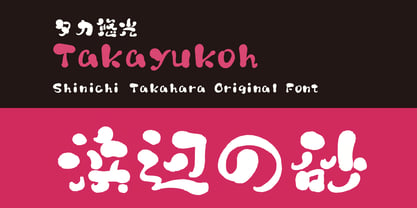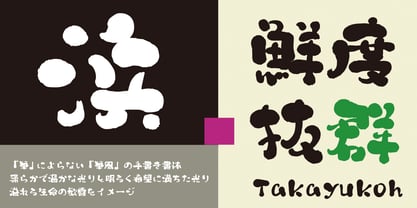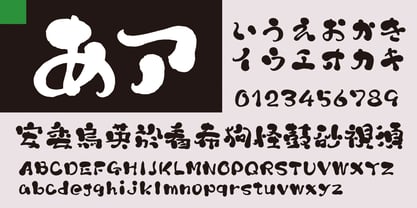
Takayukoh
The Takayukoh Font Family was designed by and published by Taka Design Production. Takayukoh contains 1 styles. More about this family
This is one of the “Takayu” series, a handwritten typeface that is described as “brush-style” but does not use a “brush”. The image is of a soft and warm glow, a bright and hopeful glow, and the joy of life overflowing.